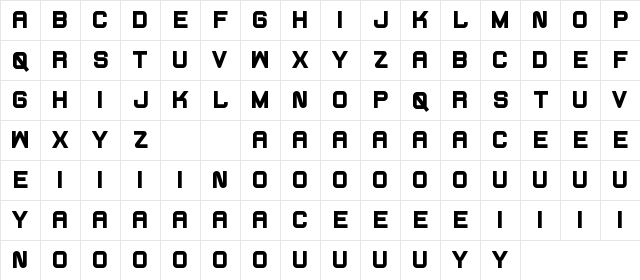
Fearcheer Demo Bold Free Font
Fearcheer Demo Bold
Foundry: NihStudio
Designer: Nouval & Suci Anita
Design Context for Fearcheer Demo
Fearcheer Demo is a composed and adaptable typeface that performs quietly and consistently across a wide range of design contexts. Its bold stroke weight gives it real presence on the page.